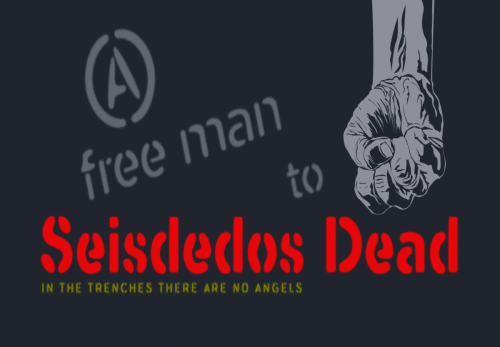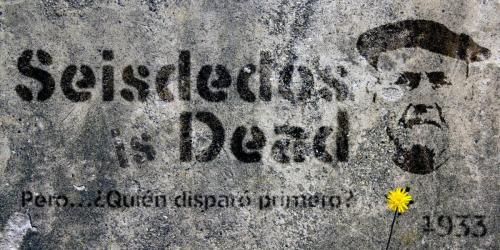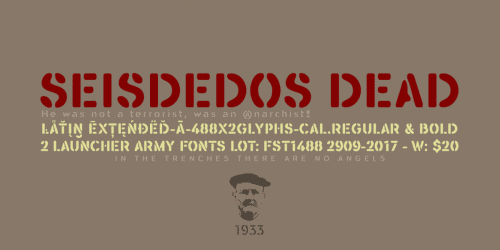
Six Fingers Dead Blur Stencil Font
Seisdedos Dead Fonts
Six Dead are two stencil-type fonts (Regular & Bold) worn by use. A fun typographic game for the de-construction of the original letters, to print a worn style where the passage of time is appreciated. These fonts are aged descendants of Brand New Stencil fonts .
The name of these stencil fonts is dedicated to Seisdedos, an old anarchist and peasant who died burned in 1933 by the assault guard of the Second Spanish Republic in his hut during the events of Casas Viejas in Cádiz. They include the Bitcoin symbol : b # (b # Ligatures).
• Designer: deFharo